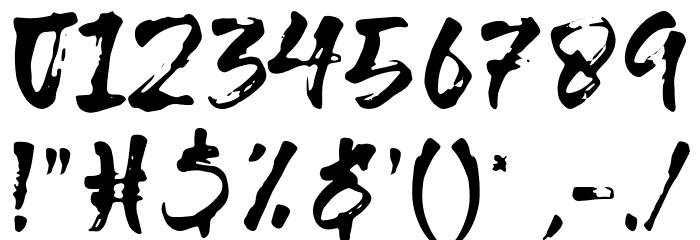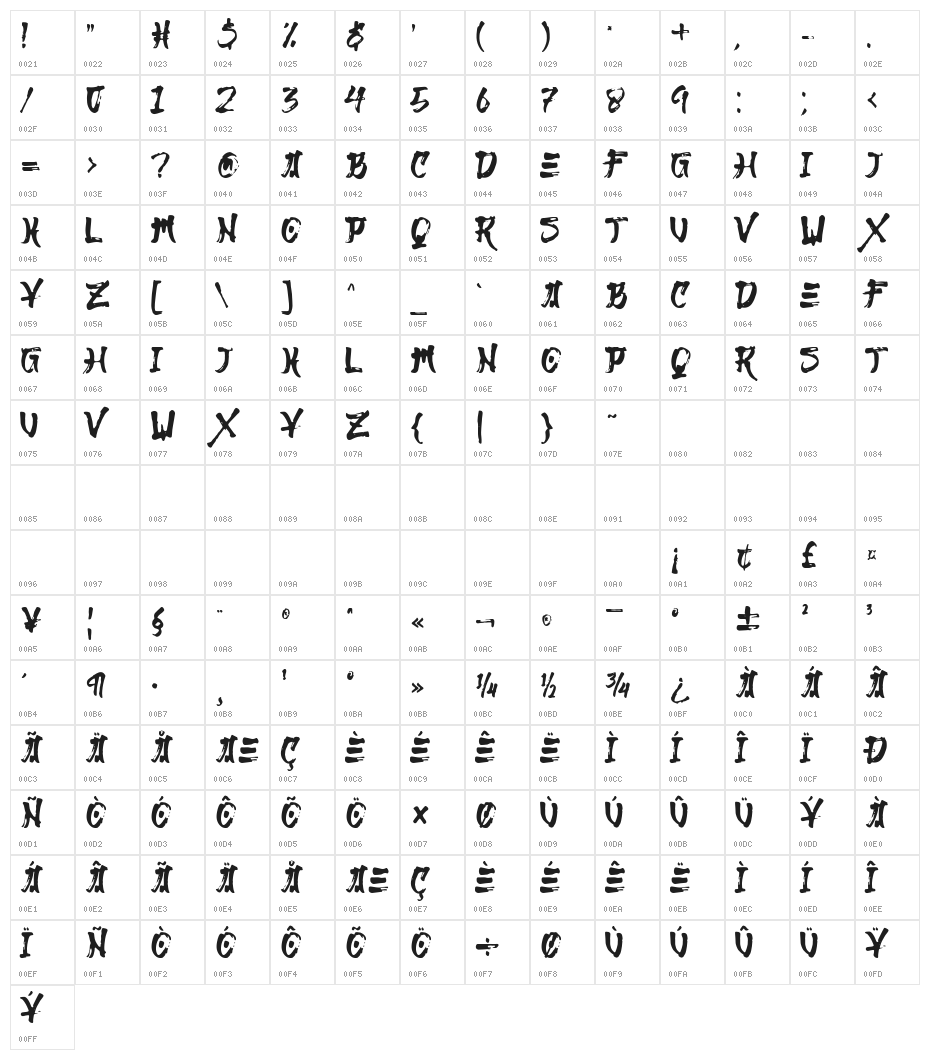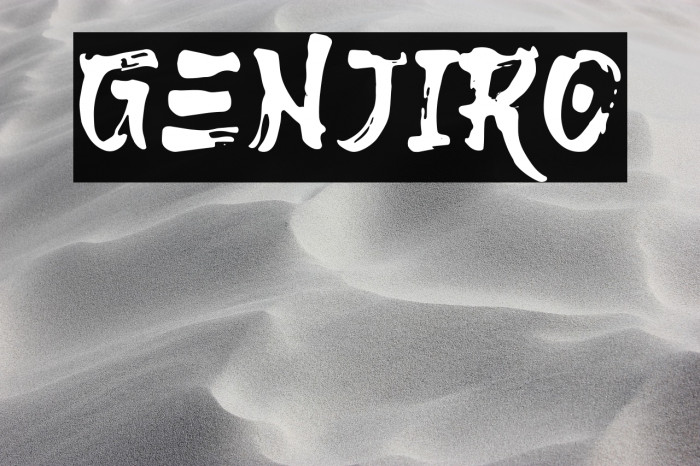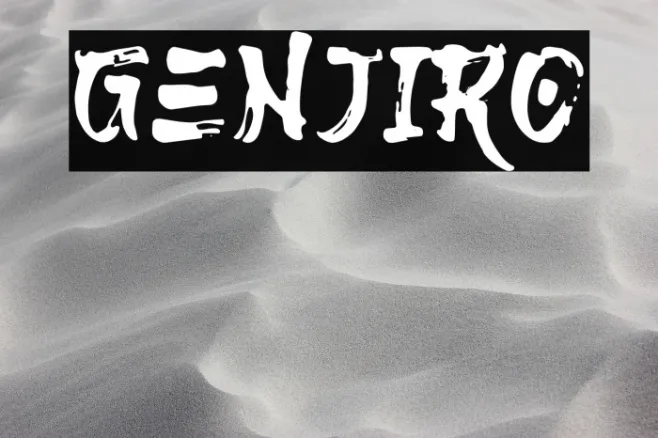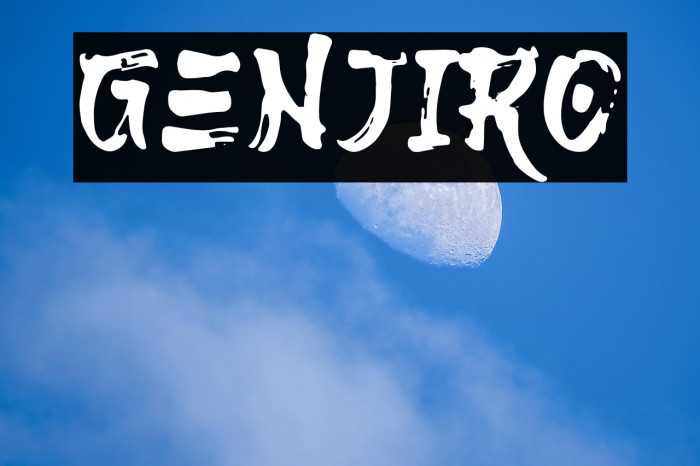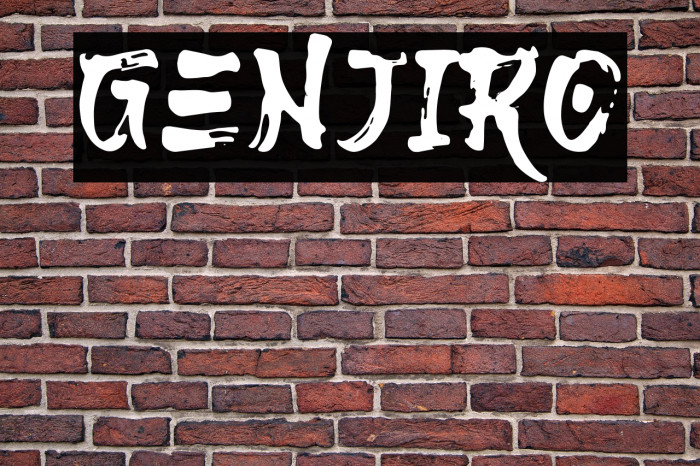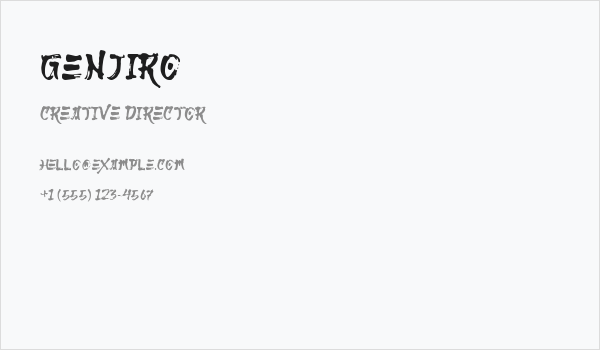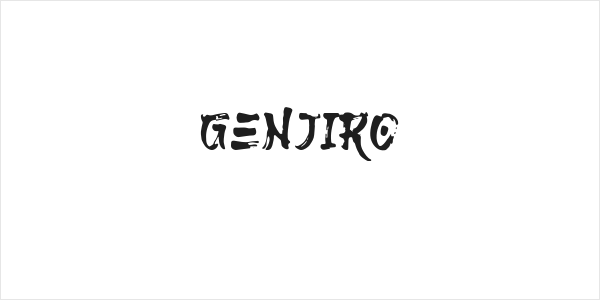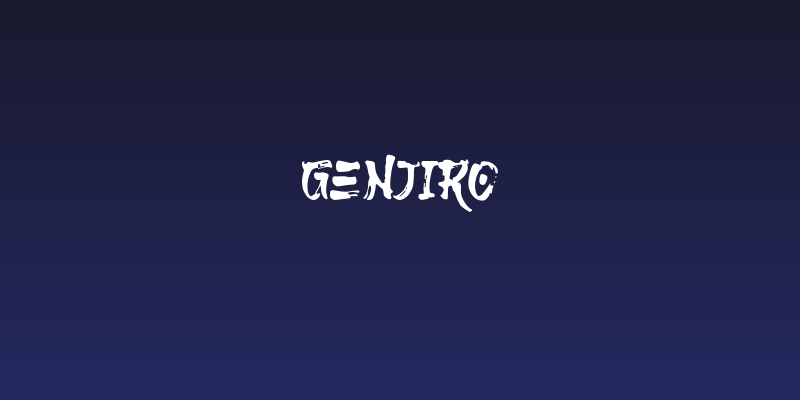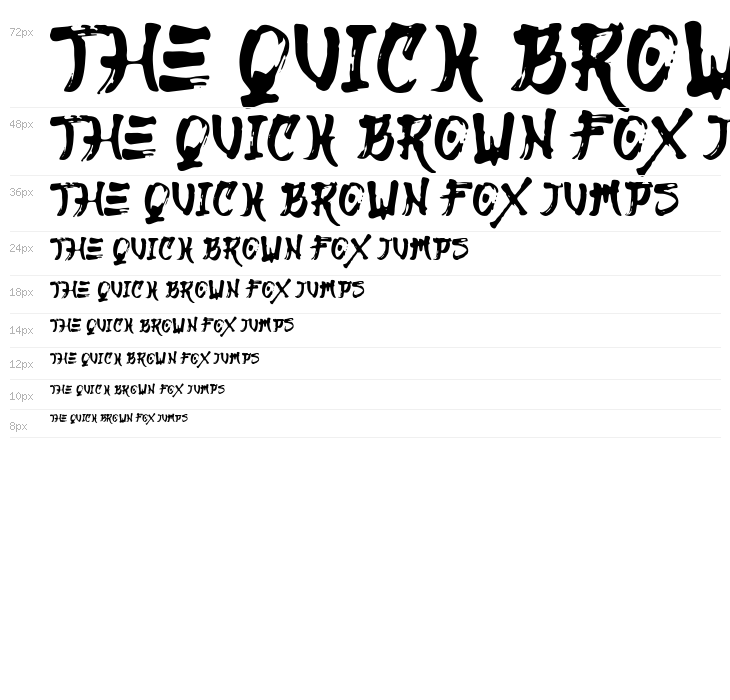
Genjiro Font
Genjiro Description
This font exudes a bold and dynamic energy, characterized by its brushstroke-like appearance. The letters have a hand-painted quality, with varying thicknesses and a slightly rough texture that adds to its artistic flair. The uppercase and lowercase characters maintain a consistent style, with dramatic curves and sharp edges that create a sense of movement and fluidity. The numerals and special characters follow the same expressive design, making the font suitable for creative and impactful designs. Its unique style captures attention and conveys a sense of creativity and boldness.
| Overall Style | Artistic, Dynamic |
| Proposed Projects | Ideal for posters, album covers, branding, and any project requiring a bold, artistic touch. |